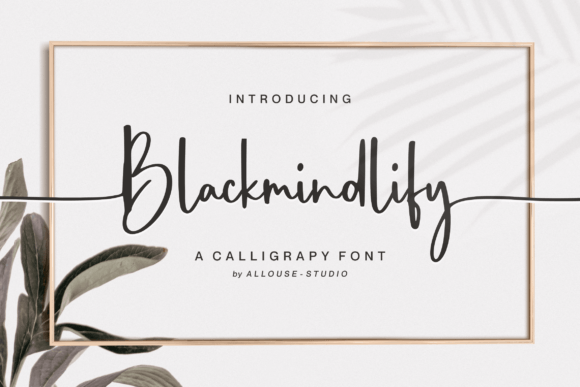
Discover the Beauty of Blackmindlify Font: Elevate Your Designs with this Stunning Handwritten Font
Are you a designer, crafty enthusiast, or simply someone who loves to add a personal touch to their projects? Look no further than the Blackmindlify Font, a gorgeous handwritten font that’s perfect for a wide range of applications. From product packaging and branding projects to magazines, social media posts, and weddings, this font is sure to make your designs stand out.
What Makes Blackmindlify Font So Special?
Blackmindlify Font is a beautiful, carefully crafted handwritten font that’s designed to add a touch of elegance and sophistication to any project. Its unique, flowing script is perfect for creating eye-catching designs that capture the attention of your audience. Whether you’re working on a commercial project or a personal craft, this font is sure to impress.
One of the standout features of Blackmindlify Font is its PUA (Private Use Area) encoding. This means that you can access all of the glyphs and swashes with ease, giving you complete creative control over your designs. With PUA encoding, you can easily insert special characters, ligatures, and other unique elements that will take your designs to the next level.
Blackmindlify Font is an incredibly versatile font that’s suitable for a wide range of applications. Here are just a few ideas to get you started:
- Product Packaging: Add a touch of elegance to your product packaging with Blackmindlify Font. Whether you’re designing labels, tags, or packaging inserts, this font is sure to make your products stand out.
- Branding Projects: Create stunning branding projects with Blackmindlify Font, including logos, business cards, and letterheads.
- Magazines and Publications: Use Blackmindlify Font to add a touch of sophistication to your magazine or publication. It’s perfect for headings, subheadings, and body text.
- Social Media Posts: Make your social media posts stand out with Blackmindlify Font. Use it to create eye-catching graphics, quotes, and other engaging content.
- Weddings and Events: Add a touch of romance and elegance to your wedding or event designs with Blackmindlify Font. It’s perfect for invitations, programs, and other stationery.
Why Choose Blackmindlify Font?
With so many fonts to choose from, why should you choose Blackmindlify Font? Here are just a few reasons:
- Unique and Elegant: Blackmindlify Font is a truly unique and elegant font that’s sure to make your designs stand out.
- Highly Versatile: This font is suitable for a wide range of applications, from commercial projects to personal crafts.
- PUA Encoded: With PUA encoding, you can access all of the glyphs and swashes with ease, giving you complete creative control over your designs.